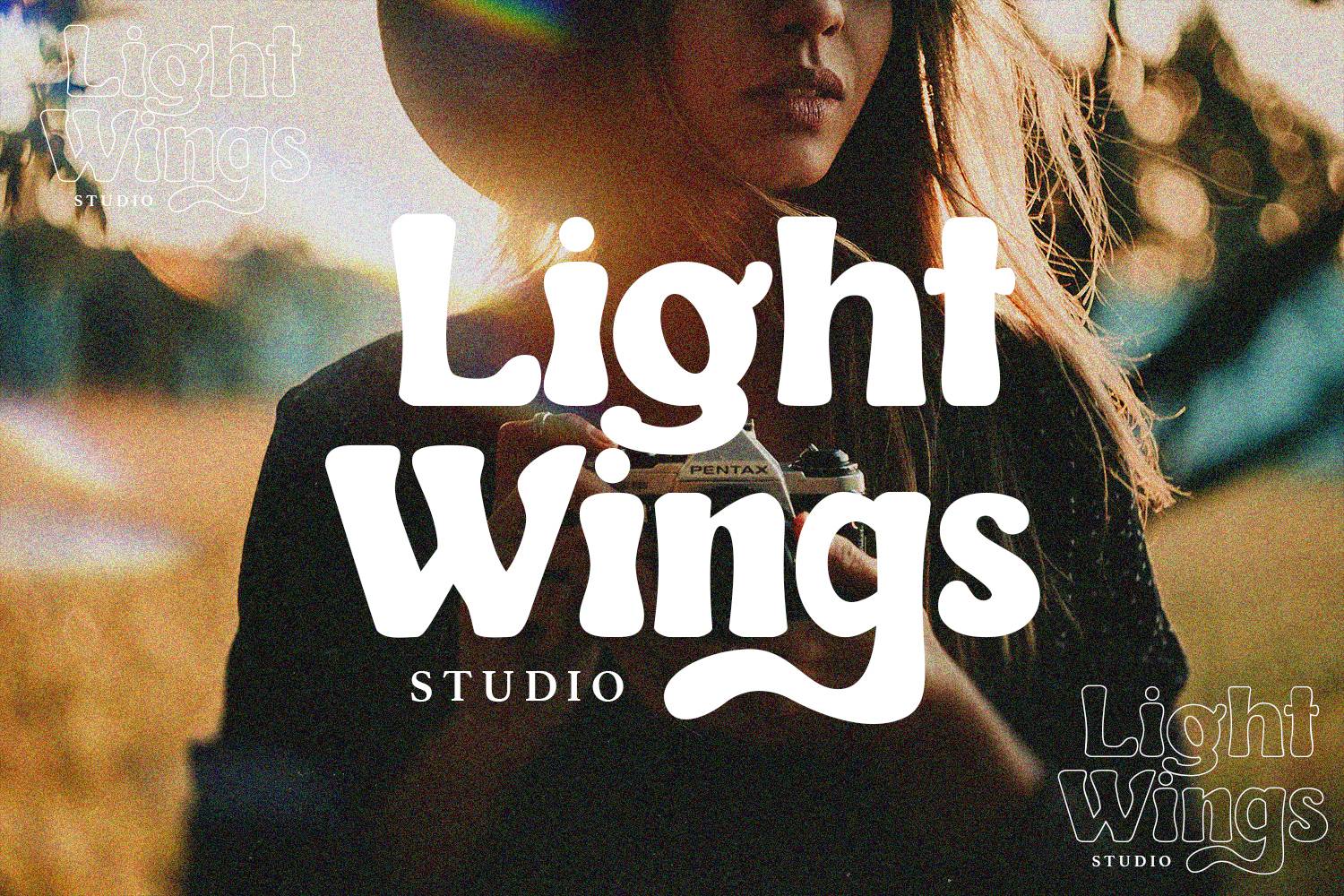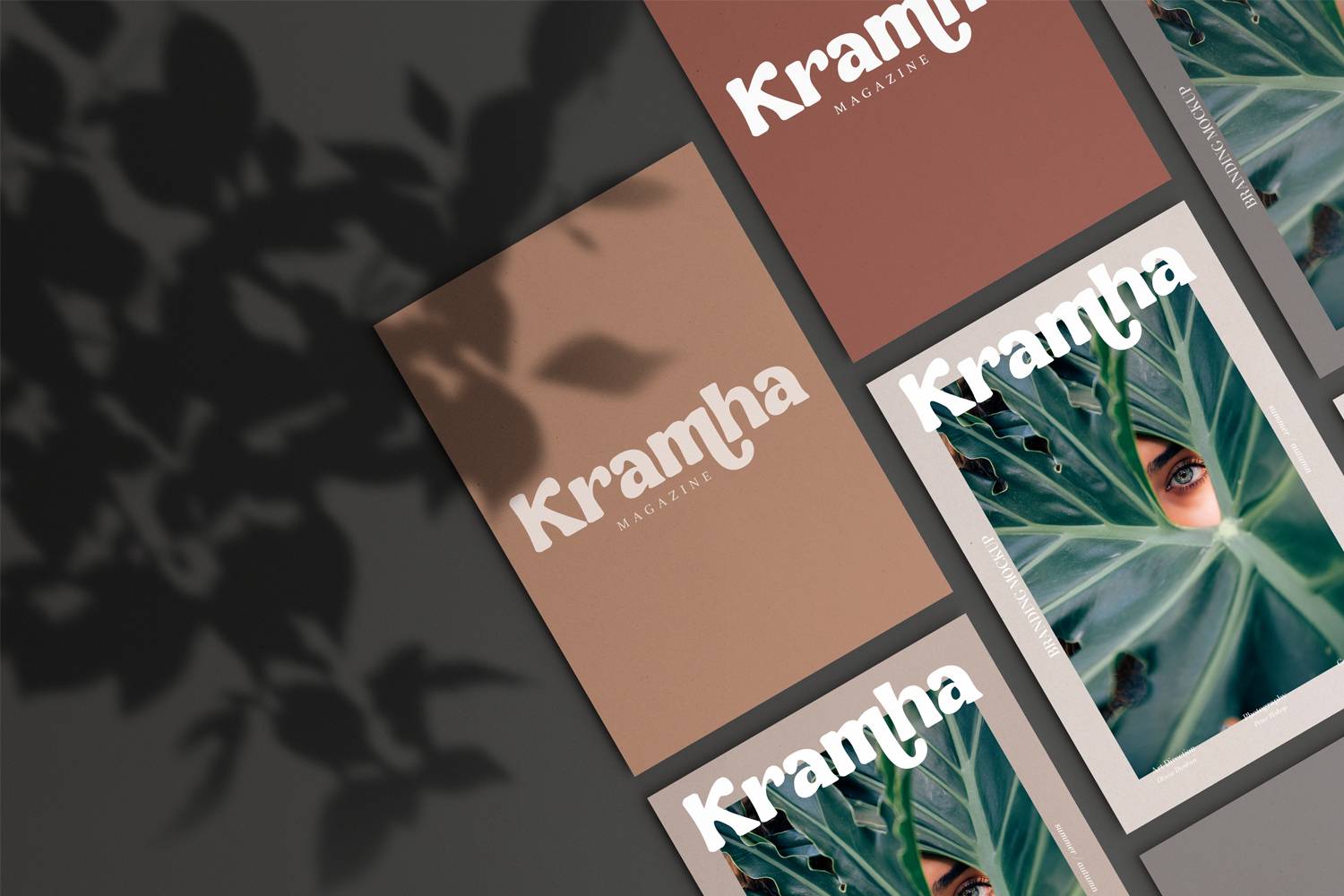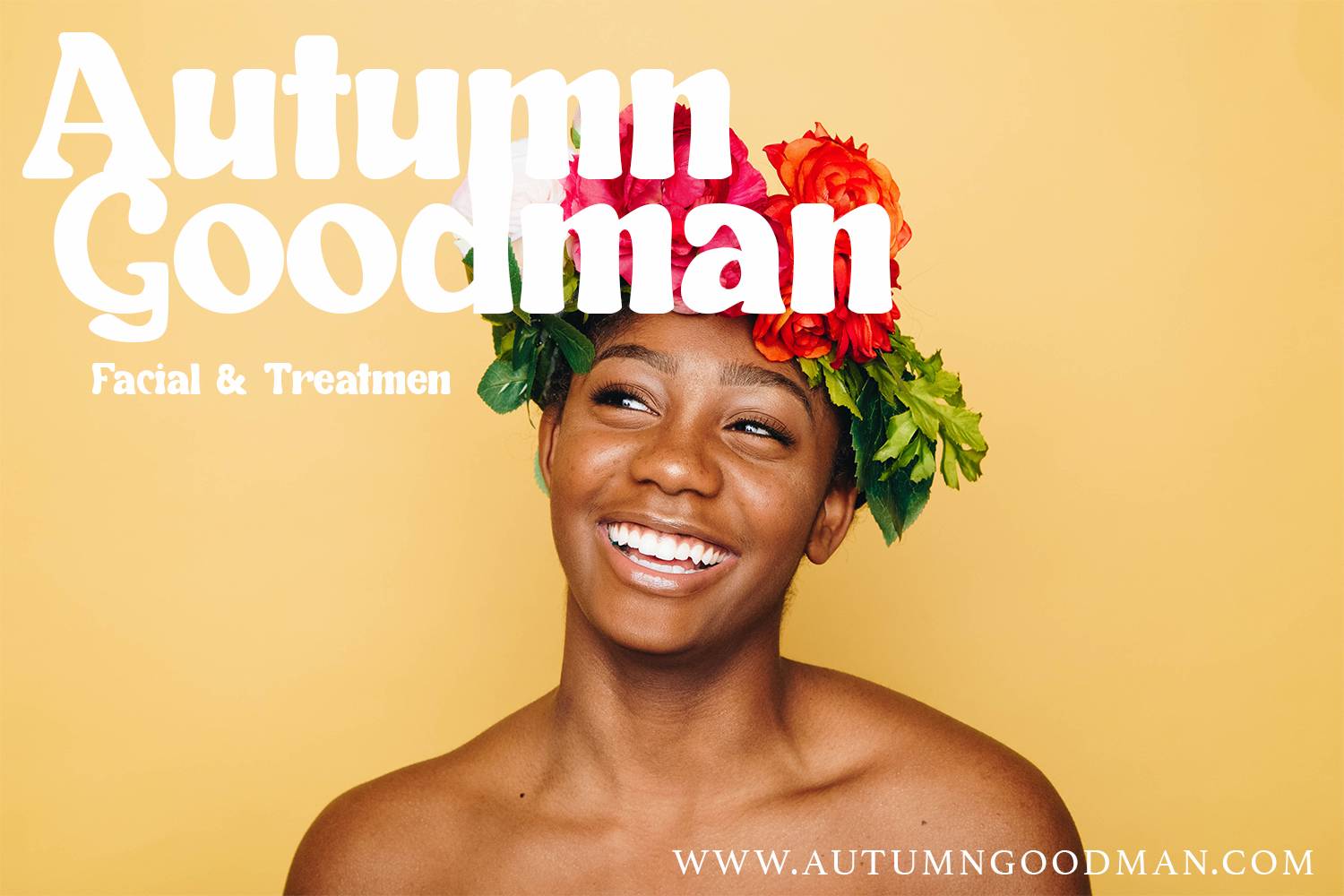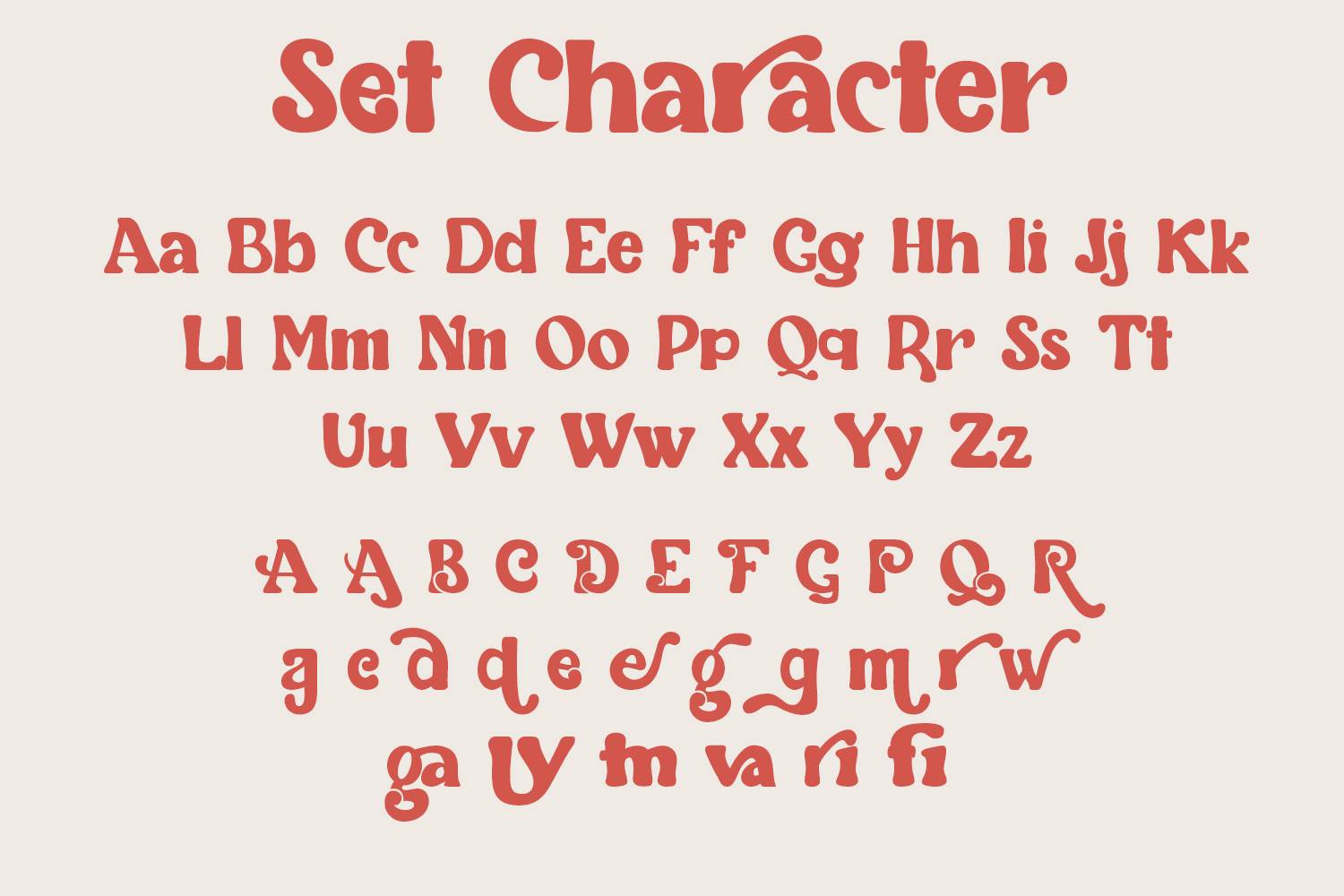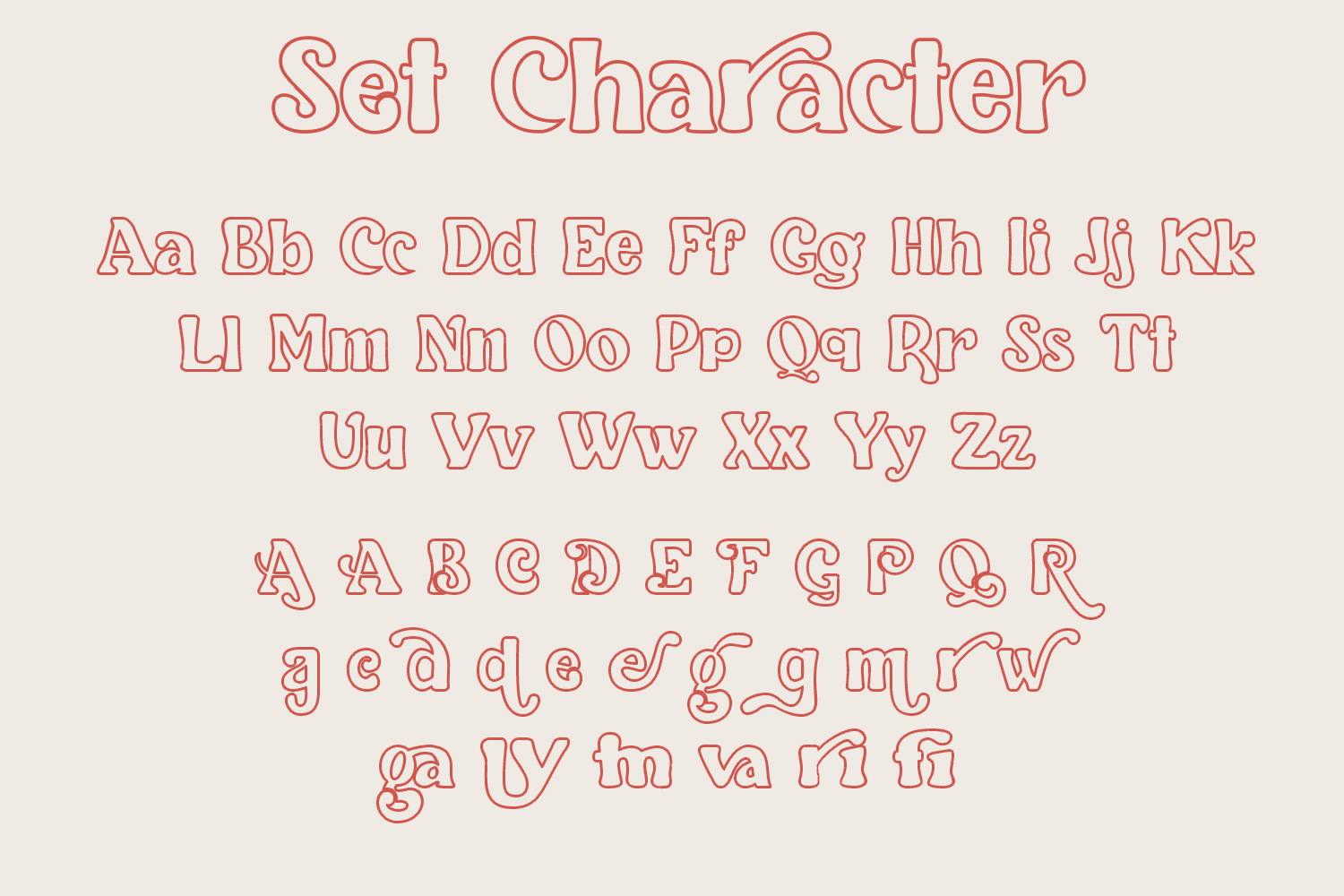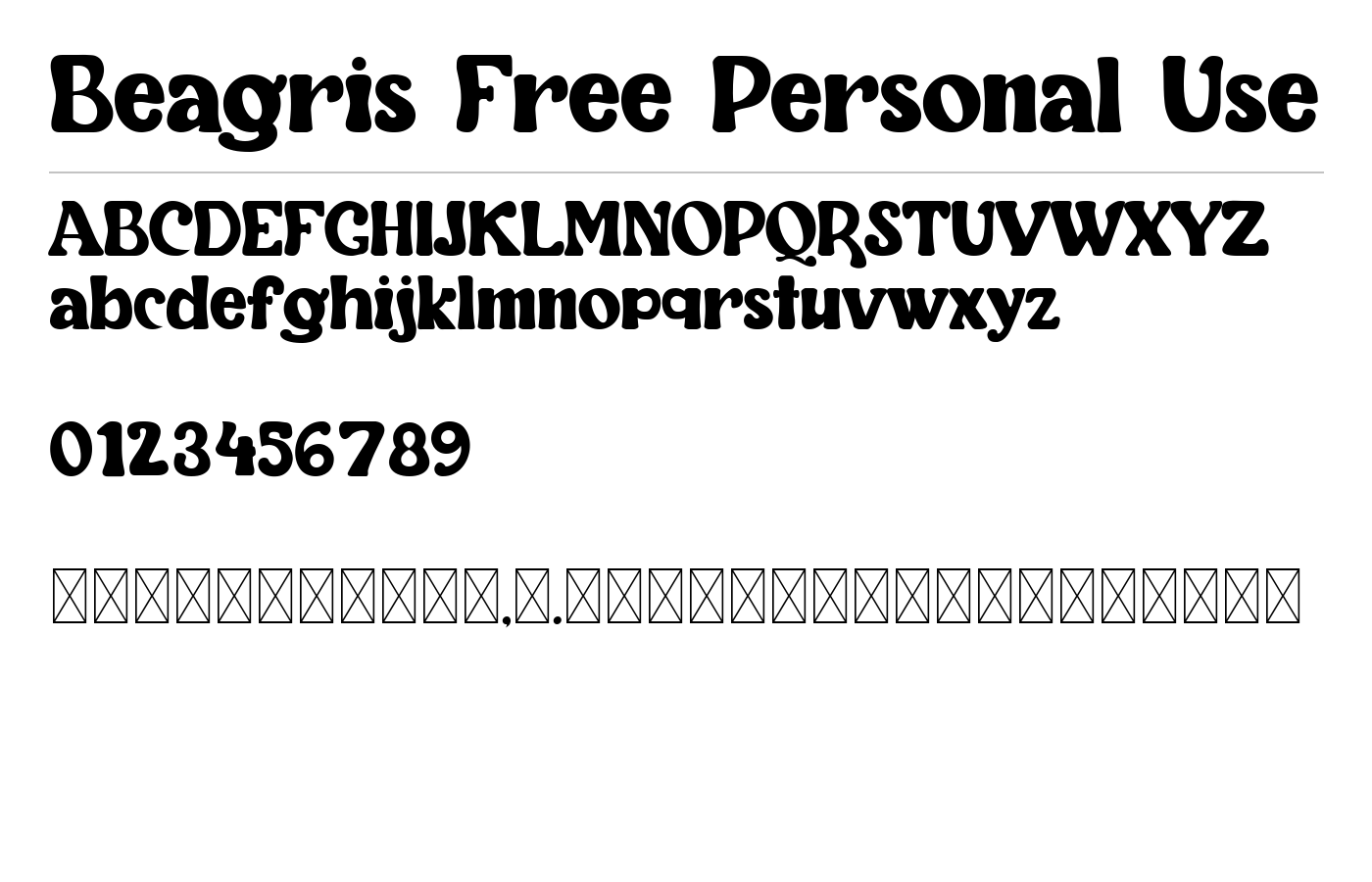
Beagris is a playful, bold serif font with a warm and friendly personality. Its chunky serifs and whimsical letterforms make it perfect for casual, creative projects like children’s books, posters, or any design that aims to feel inviting and approachable. This font works best in headlines or display use where its charming character can stand out.
Beagris Font
About Beagris Font